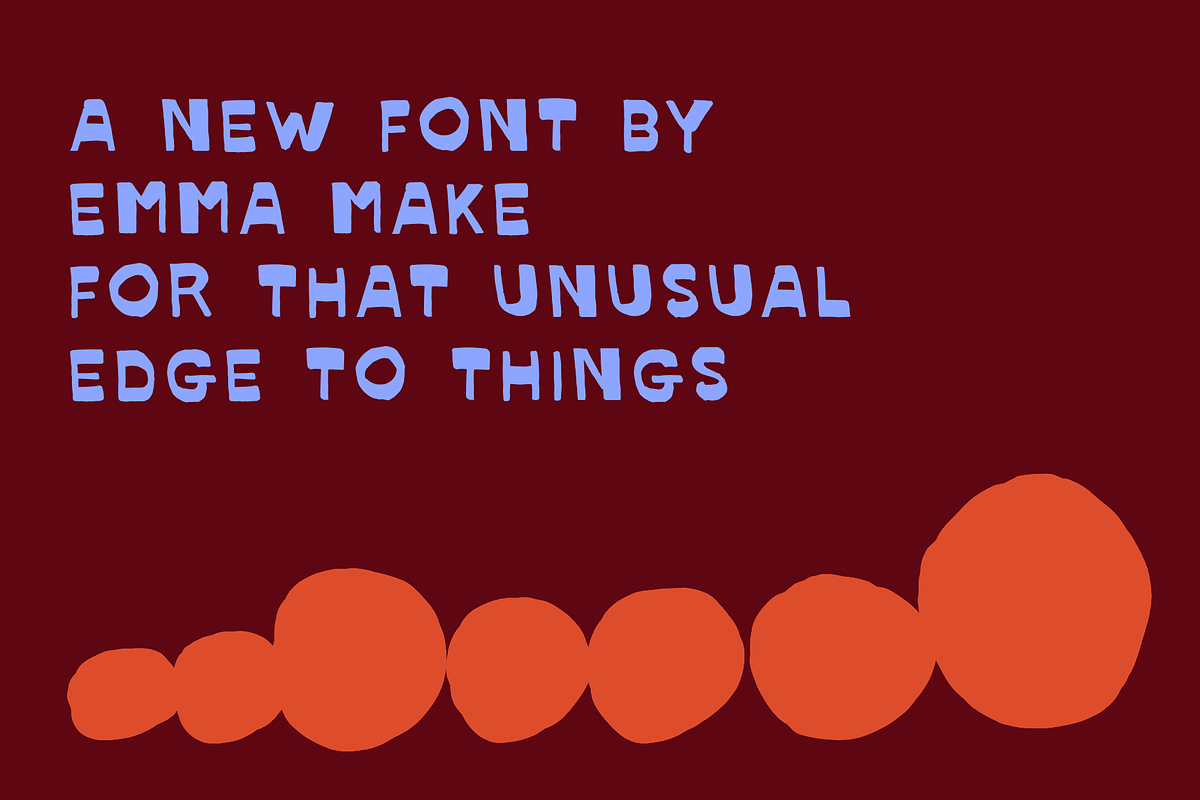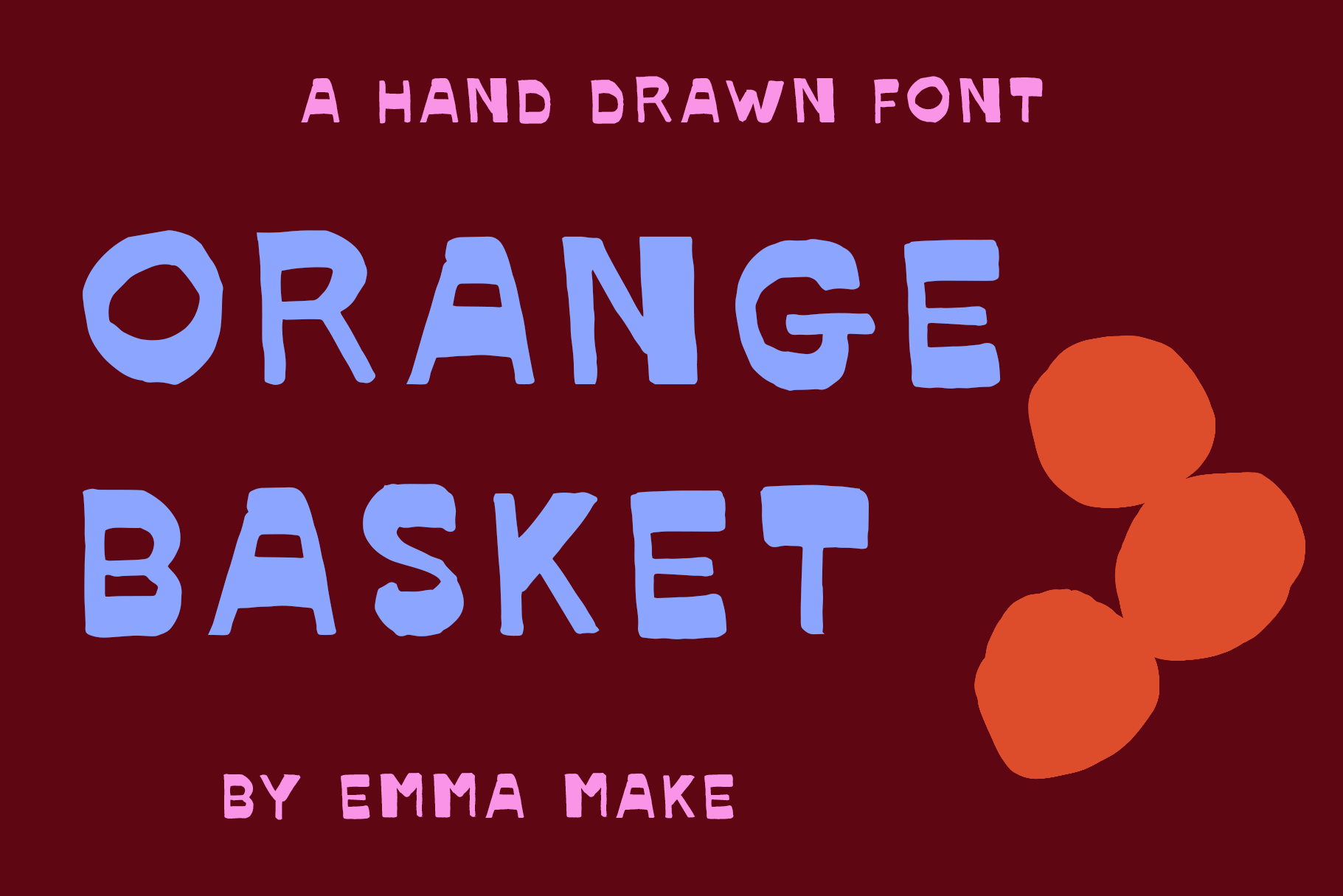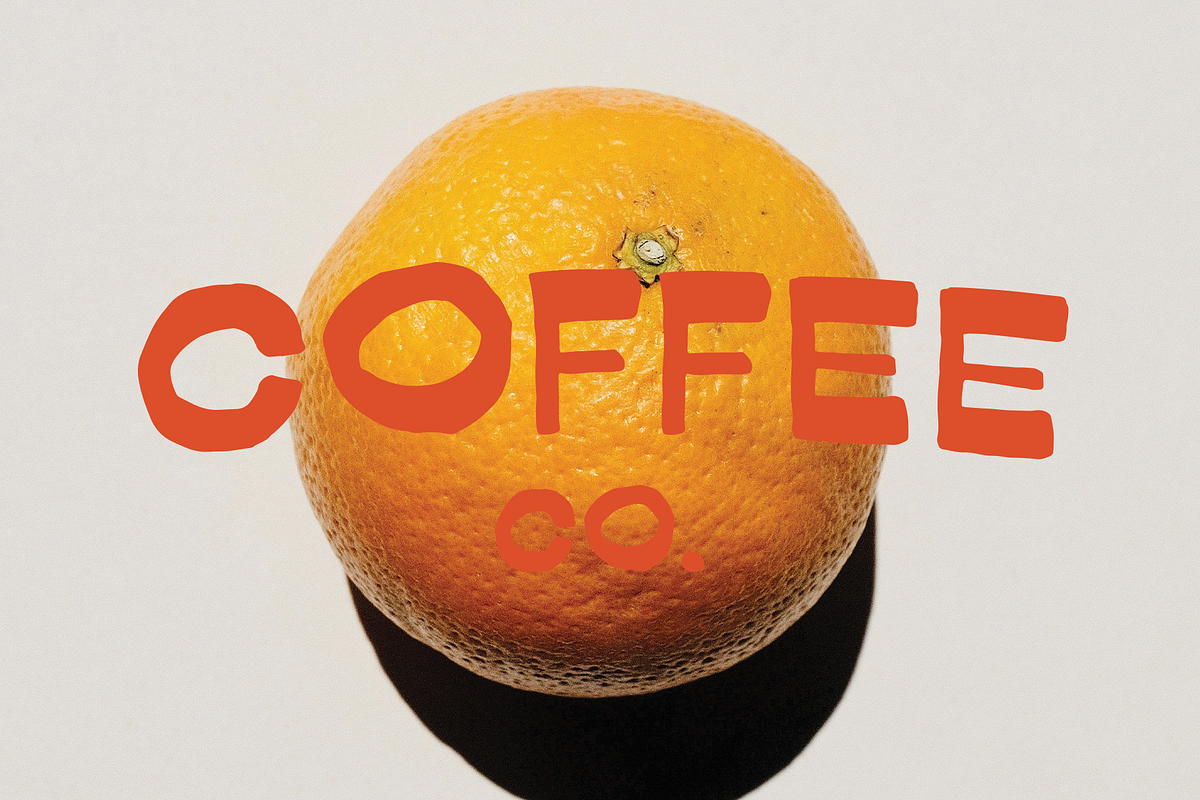
OrangeBasket - Reverse Contrast Font
Orange Basket is a reverse contrast font inspired by Italian fonts. The hand-drawn feel gives it the perfect edge to accompany drawings and hand-drawn posters or websites.